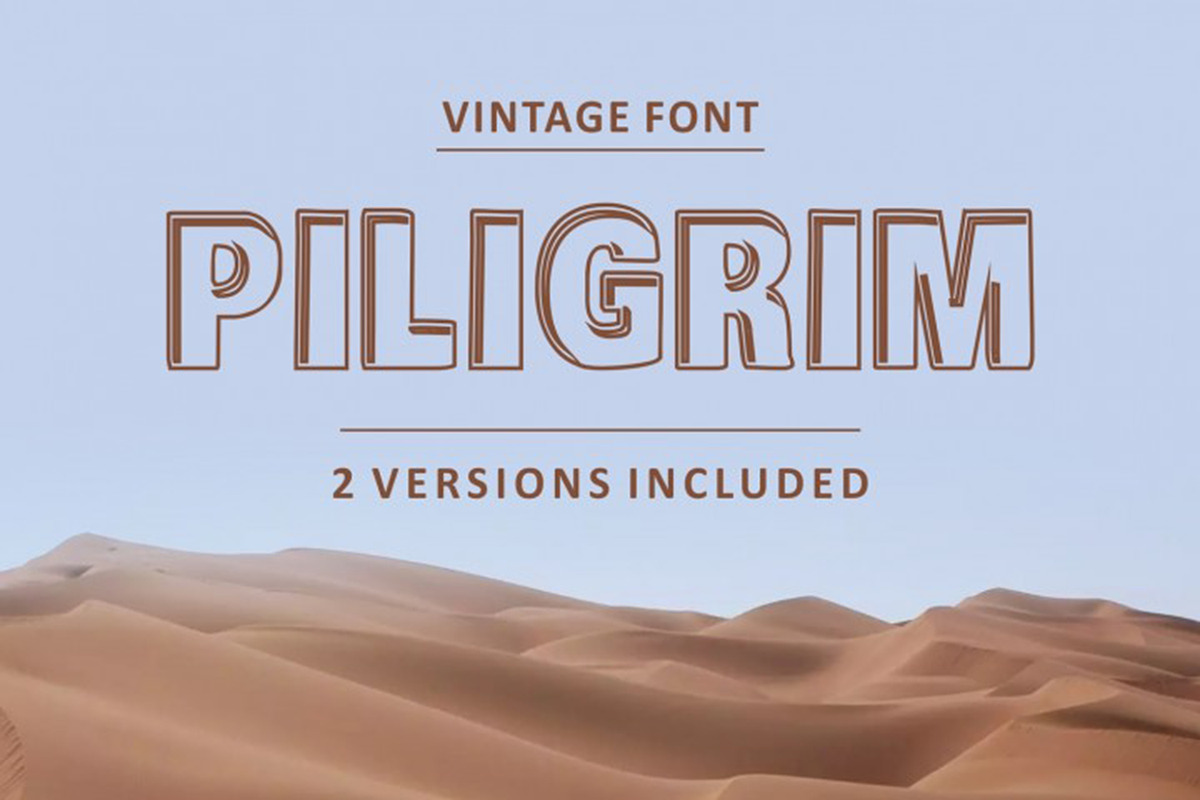
Piligrimistic Font 2 versions
Piligrimistic is a font you can use to decorate simple and tough designed postcards as well as book or notebook covers. Also it is good for illustration for fiction types or magazine (newspaper) headings. This font vary from many font families as it has its own style and personalised outline. Bold itself it has transparent (white) fill that makes this font applicable for many purposed to be used with. As connection with meaning this font has bold strong characters.
Font consist of: White (transparent) filled letters Uppercase letters Lowercase letters (uppercase letters small sized) Bold (black filled) Numbers Punctuation Selected special characters
Fixed letter smoothly ends and corners Fixed letter`s distance Fixed smooth Letters in comparison between uppercase and lowercase White (transparent) filled letters Uppercase letters Lowercase letters (uppercase letters small sized) White (transparent) filled Numbers Punctuation Selected special characters